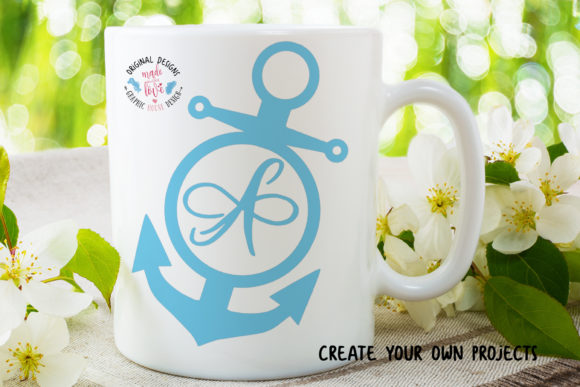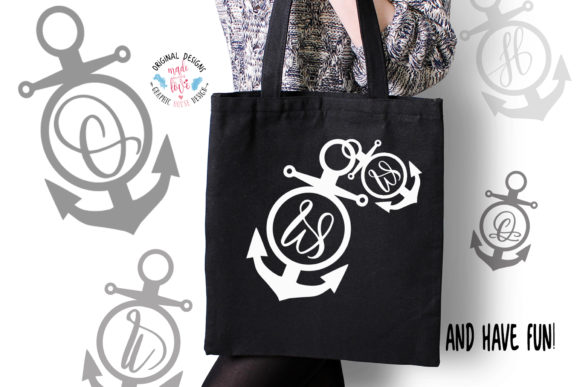
Discover the Charming Anchor Font: Elevate Your Nautical and Maritime Crafts
Are you a designer or crafter looking for a unique and captivating font to add a touch of personality to your nautical and maritime-themed projects? Look no further than the Anchor Font! This beautiful decorative font boasts a charming feel that will instantly elevate your crafts and make them stand out.
What is Anchor Font?
Anchor Font is a specially designed typeface that embodies the essence of the sea. Its intricate and decorative design makes it perfect for a wide range of applications, from crafting beautiful signage and posters to creating eye-catching packaging and branding materials.
Key Features of Anchor Font
- Unique and decorative design: Anchor Font features an intricate and charming design that will add a touch of personality to your projects.
- Nautical and maritime theme: The font’s design is inspired by the sea, making it perfect for nautical and maritime-themed crafts.
- High-quality design: The font is designed with high-quality craftsmanship, ensuring that it looks great in any size or application.
Uses of Anchor Font
Anchor Font is a versatile typeface that can be used in a wide range of applications, including:
- Signage and posters: Create eye-catching signs and posters for nautical and maritime-themed events, businesses, or attractions.
- Packaging and branding: Add a touch of personality to your packaging and branding materials with Anchor Font.
- Crafting and DIY projects: Use Anchor Font to create beautiful and unique crafts, such as nautical-themed cards, gift tags, and decorations.
- Web design: Use Anchor Font to add a touch of personality to your website or blog, especially if you have a nautical or maritime theme.
Tips for Using Anchor Font
Here are some tips for getting the most out of Anchor Font:
- Use it sparingly: Anchor Font is a decorative font, so it’s best to use it sparingly to avoid overwhelming your design.
- Pair it with a simple font: Pair Anchor Font with a simple font to create contrast and make your design more readable.
- Experiment with different sizes: Anchor Font looks great in a variety of sizes, so don’t be afraid to experiment to find the perfect size for your design.
Anchor Font is a beautiful and charming decorative font that is perfect for nautical and maritime-themed crafts. Its unique design and versatility make it a great addition to any designer’s or crafter’s toolkit. Whether you’re creating signage, packaging, crafts, or web design, Anchor Font is sure to add a touch of personality and charm to your projects.